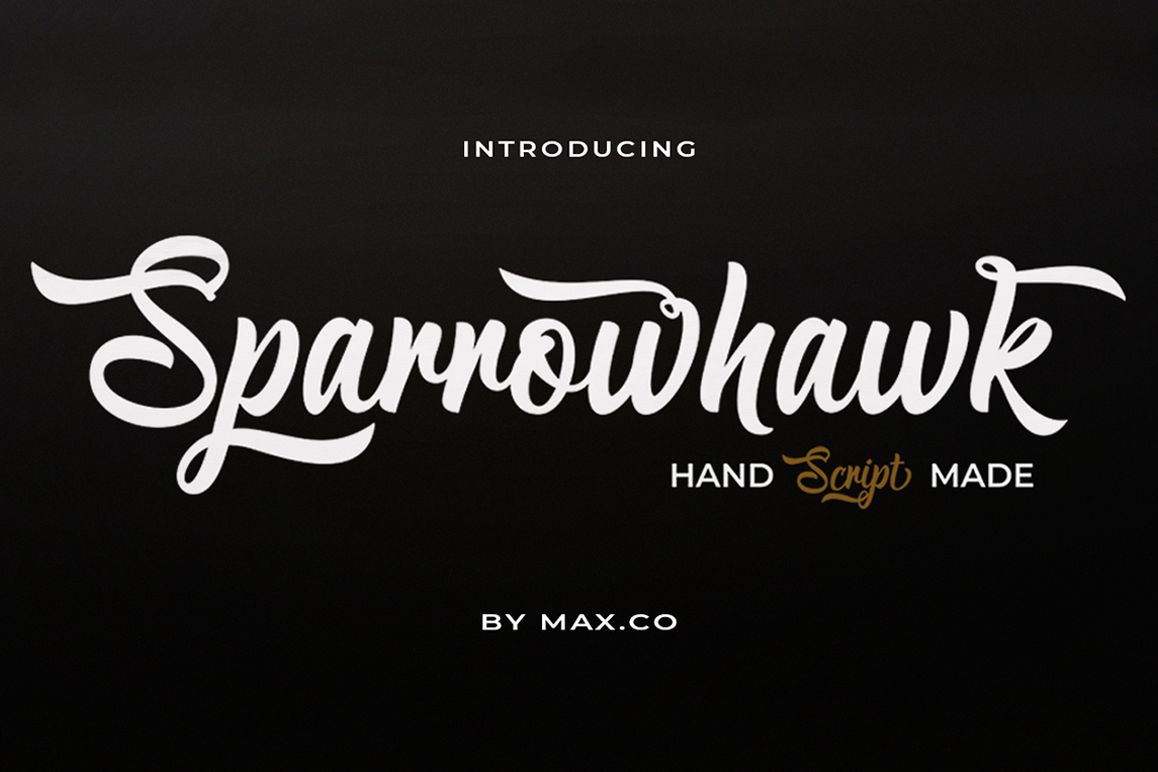
Sparrowhawk Script
Sparrowhawk Script is retro signage font, bold and clean. There are so many variations on each character. Include Opentype stylistic alternates. You are able to create so many different typographical layouts easily and quickly. Make sure you use OpenType savvy program and simply open Glyph Palette to access all of the glyphs. This font is suitable for t-shirts, signage, logos, headlines, branding, packaging, etc.
Sparrowhawk Script features 460+ glyphs and alternate characters. including initial and terminal letters, alternates, ornament, swash, ligatures and multiple language support.